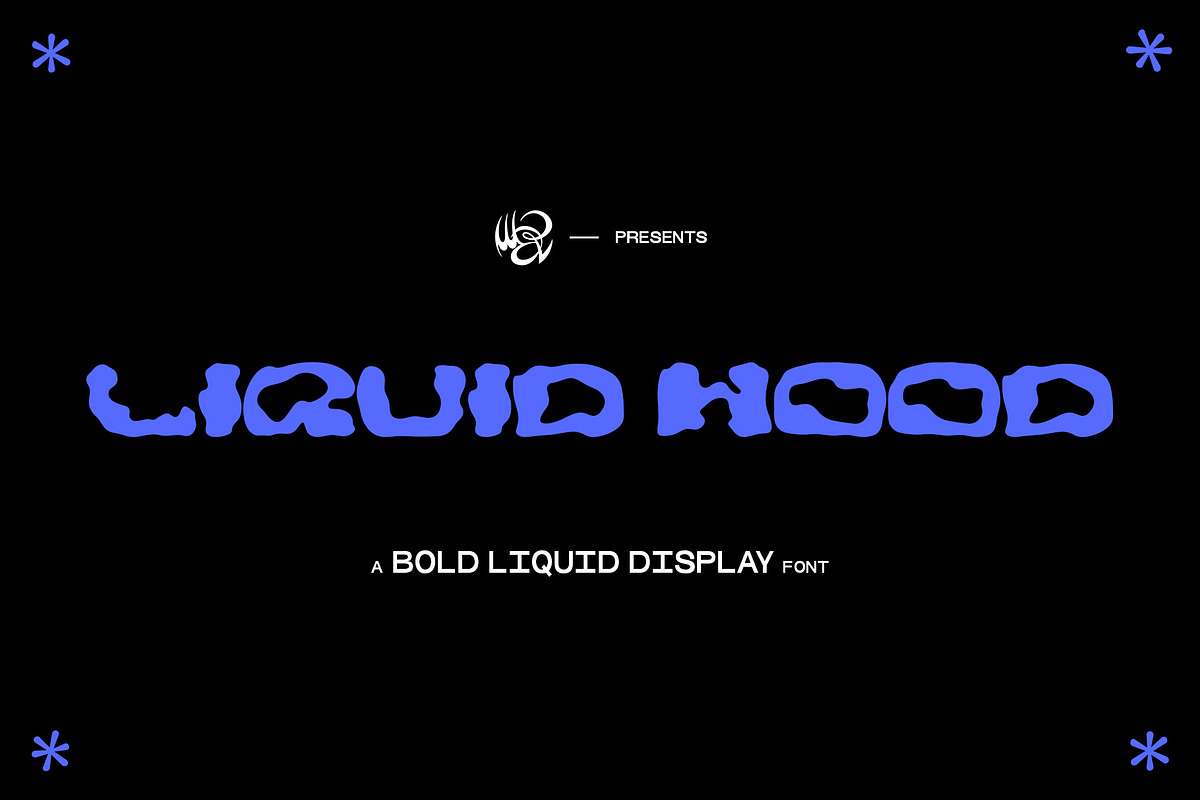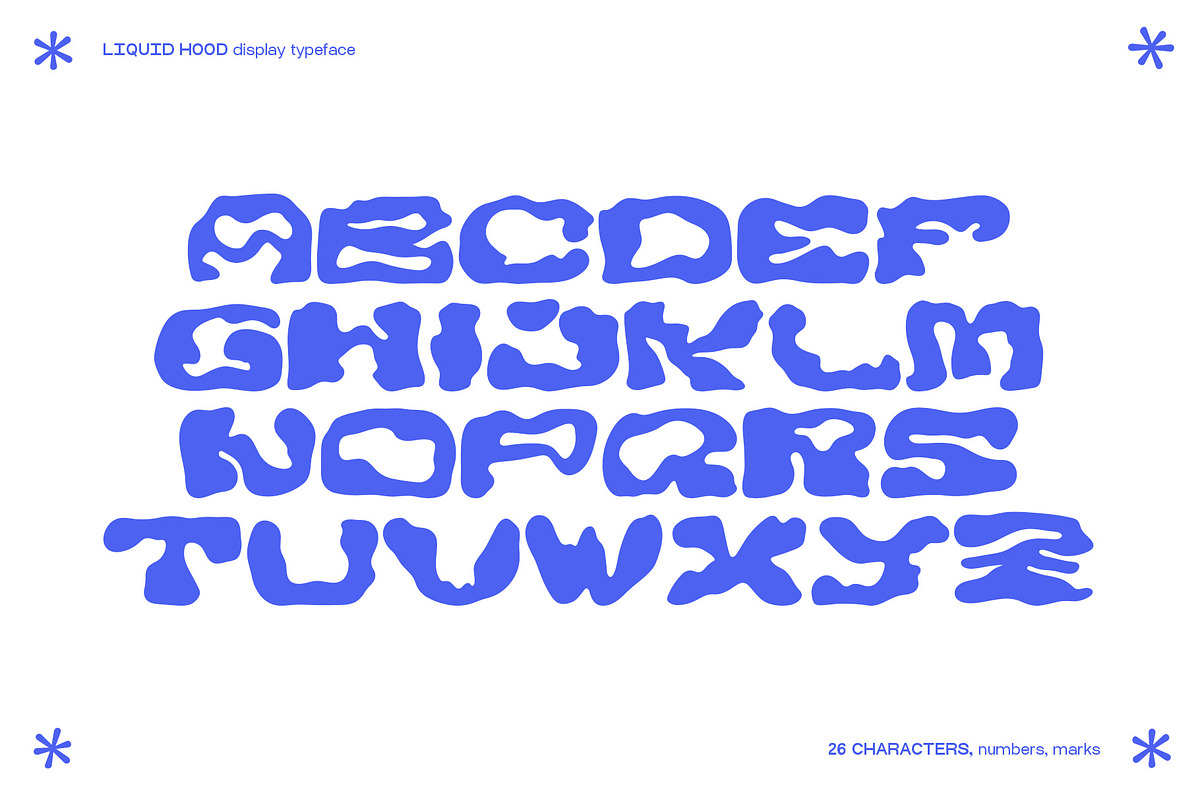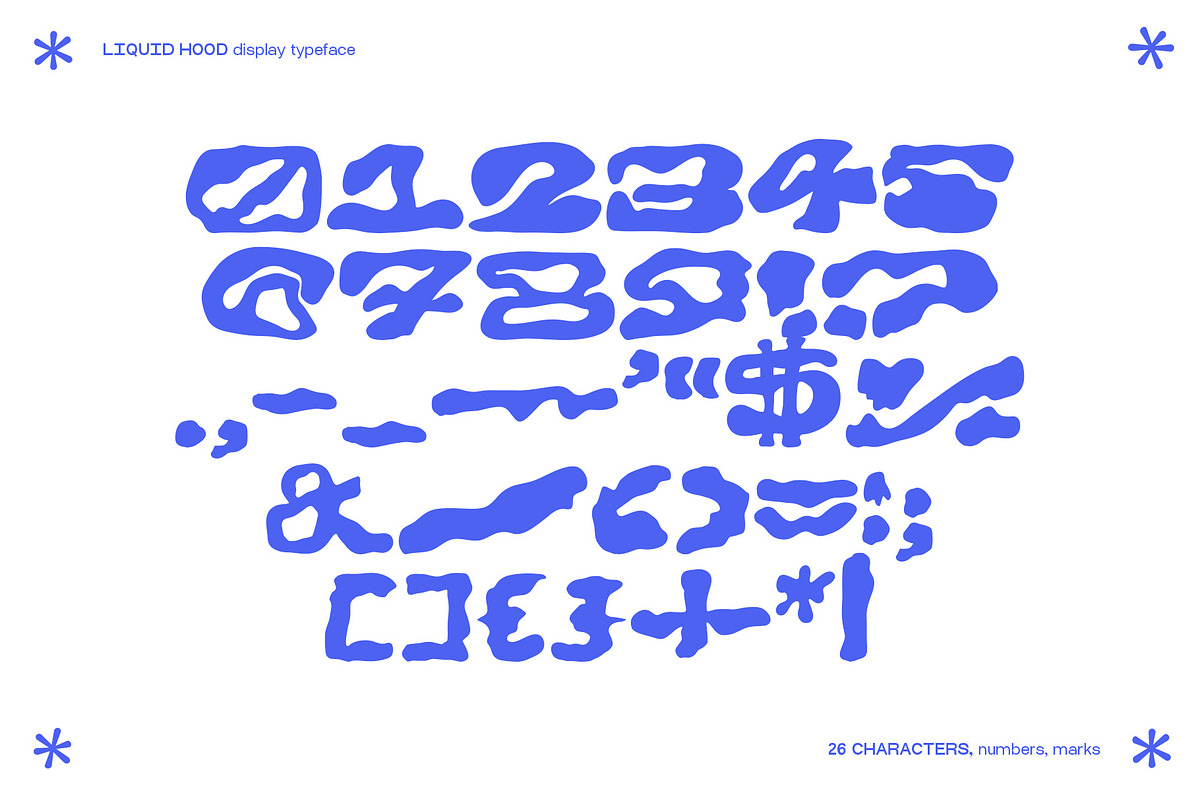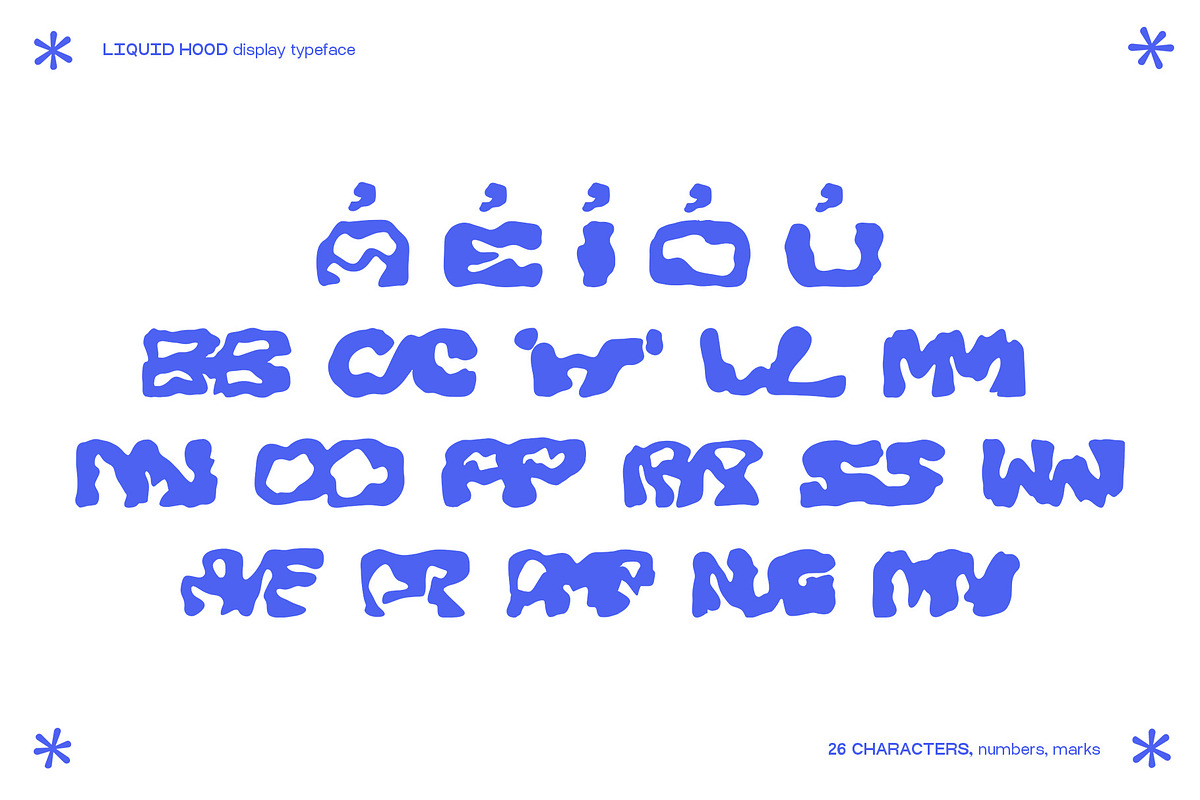
LIQUID HOOD Display Typeface
LIQUID HOOD is a new liquid bold display typeface full of all letters, numbers and marks. This unique font also has many combinations of letters making it very interesting to read. Even if the font is somewhat strange it's still very easy to read even if in small pts. The font has been designed to look wide like many modern bold fonts but with the twist of being liquid. It's perfect to write big headlines, logos, artworks, merch, posters and more..